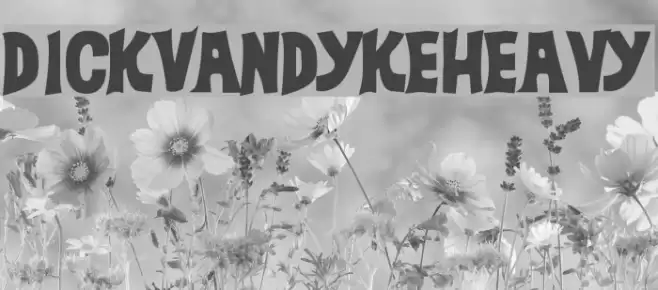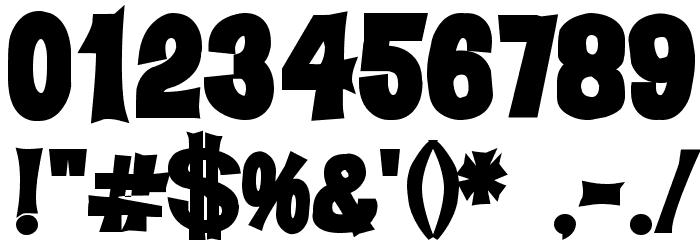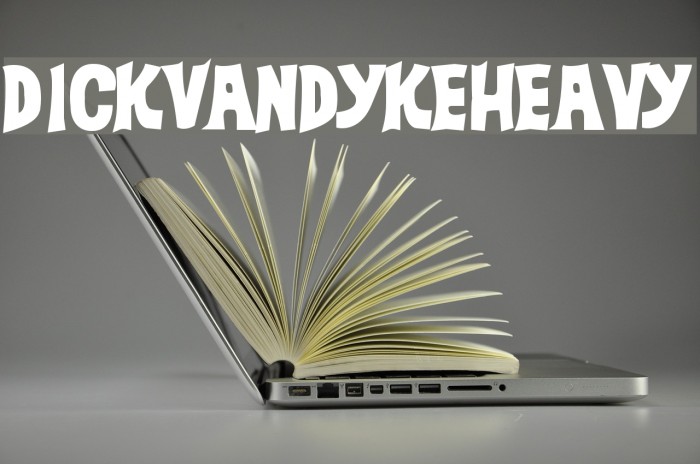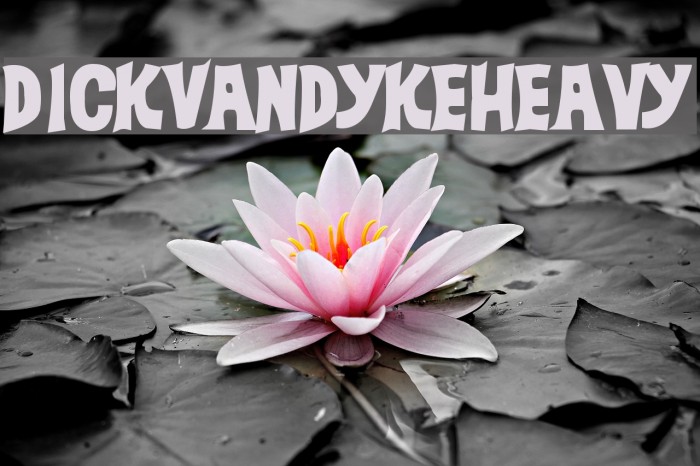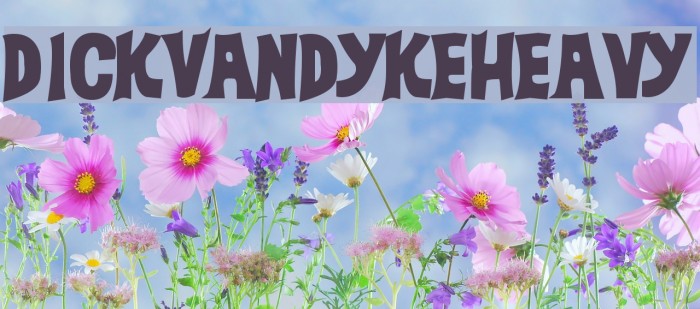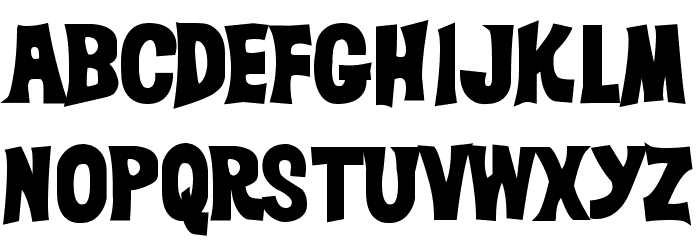
DickVanDykeHeavy Font
DickVanDykeHeavy Description
This font showcases a bold and playful style with exaggerated, thick strokes and a whimsical flair. The characters have a unique, almost cartoonish appearance, with varying widths and slightly irregular shapes that add to its charm. The uppercase letters are particularly striking, with a strong presence that commands attention. The numbers and special characters maintain the same boldness, ensuring consistency across all glyphs. This font is designed to stand out, making it ideal for projects that require a fun and dynamic visual impact.
A bold, playful font with exaggerated strokes and a whimsical style from Comic fonts.
- Proposed Projects: Ideal for children's book covers, playful branding, posters, and any project needing a fun, eye-catching typeface.
- Overall Style: Playful, Whimsical, Bold
- Use Case: Headlines, Posters, Branding